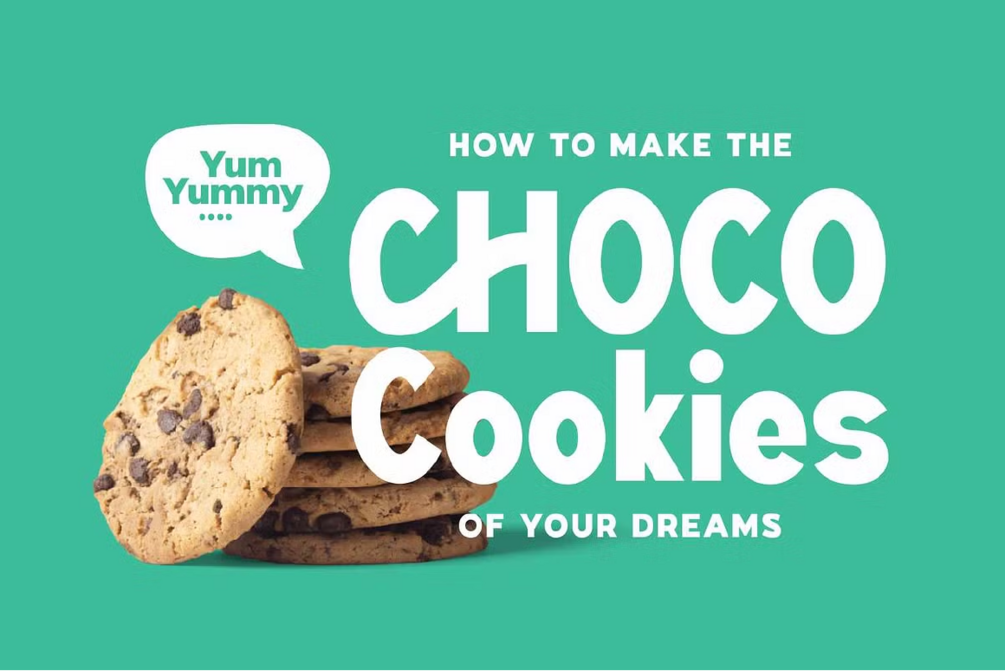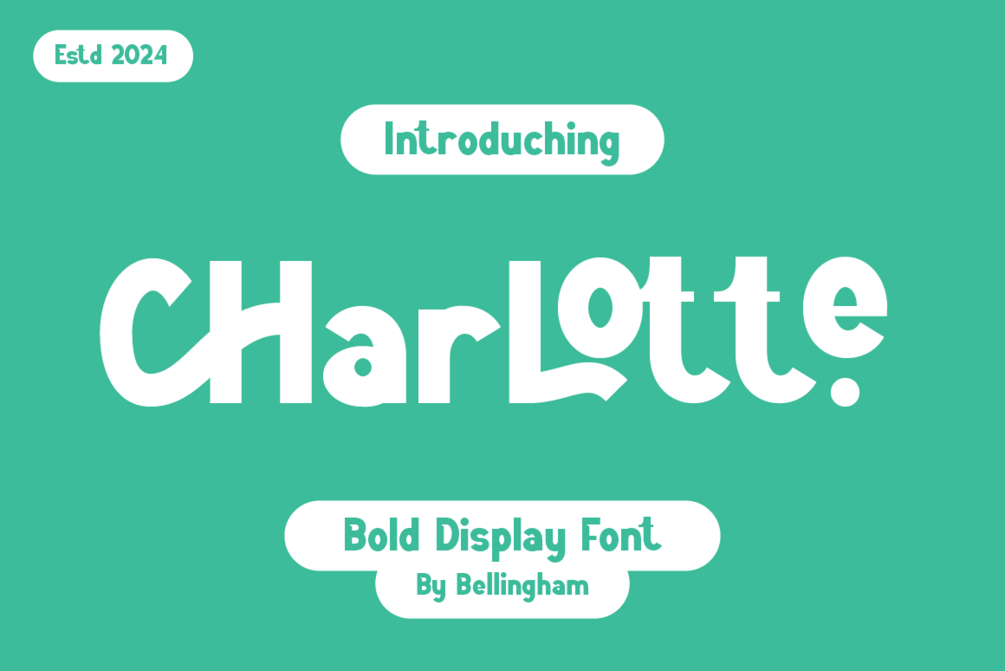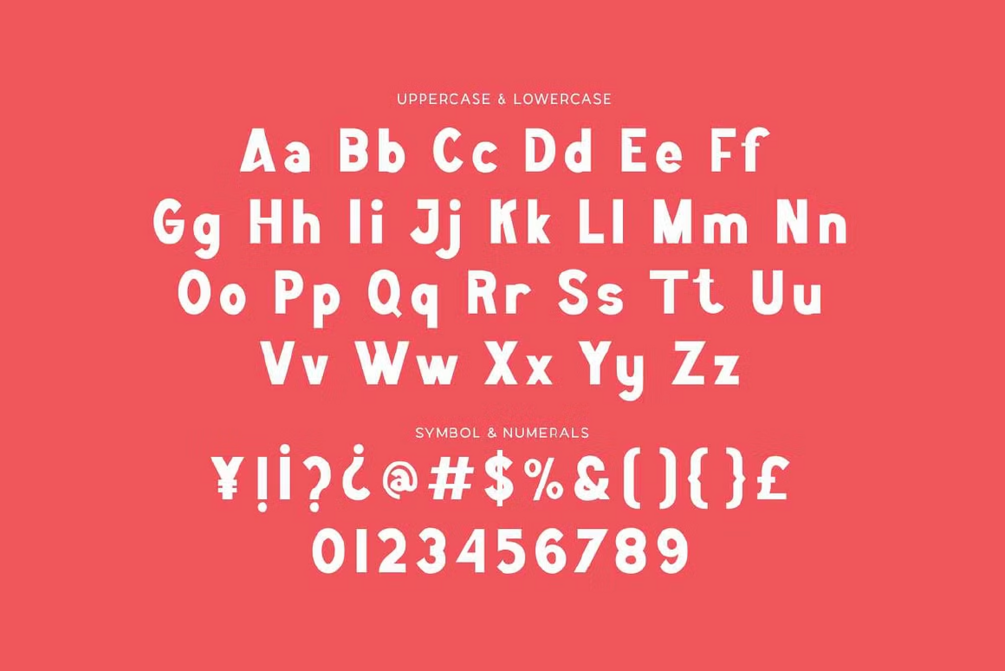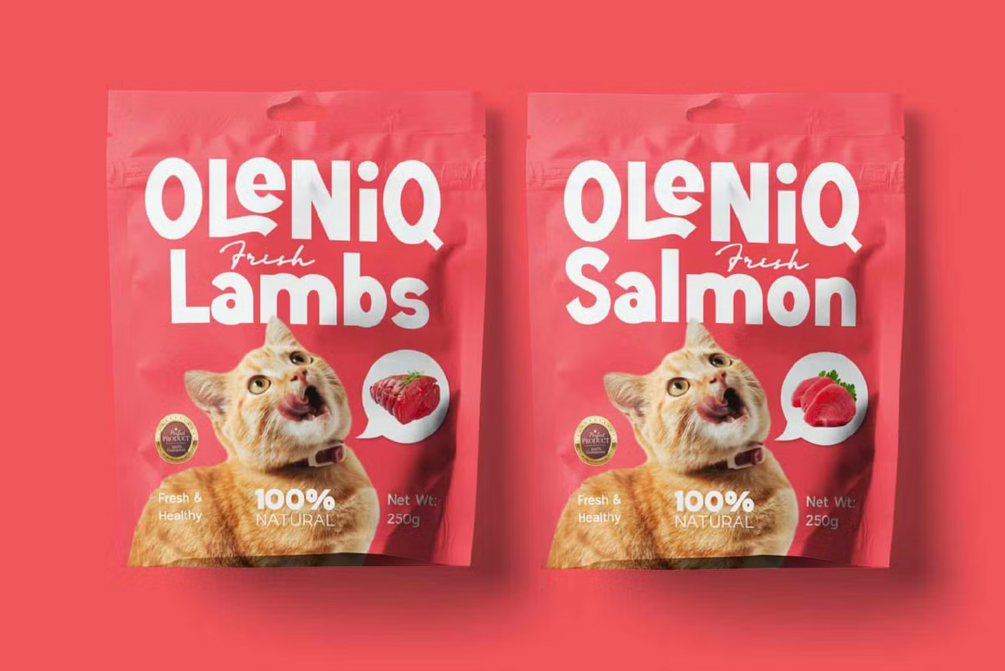
Charlotte
Charlotte Display font. This font would be perfect for photography, watermarks, social media posts, advertisements, logos & branding, invitations, product design, labels, stationery, product packaging, special events, and other projects.